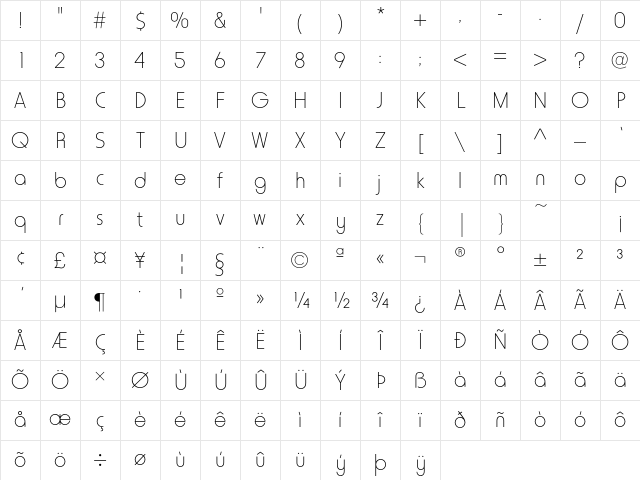
HoratioEF Light Free Font
HoratioEF Light
HoratioEF Family
HoratioEF Light
Design Context for HoratioEF
HoratioEF is a composed and adaptable typeface that performs quietly and consistently across a wide range of design contexts. Its slender proportions lend an understated elegance to any composition.